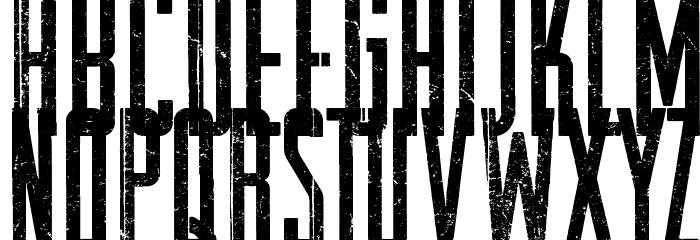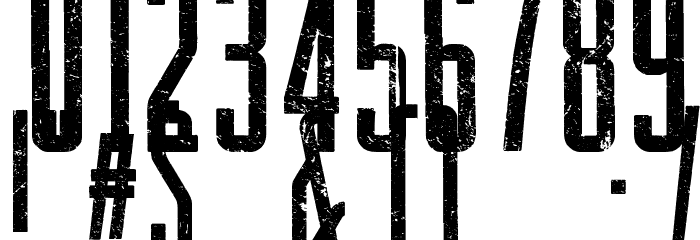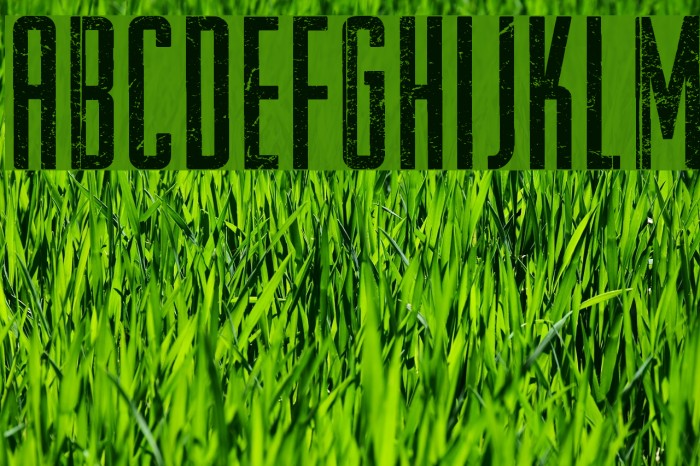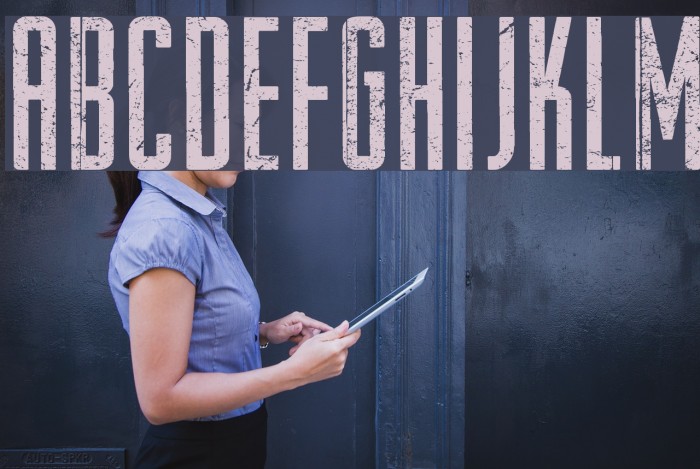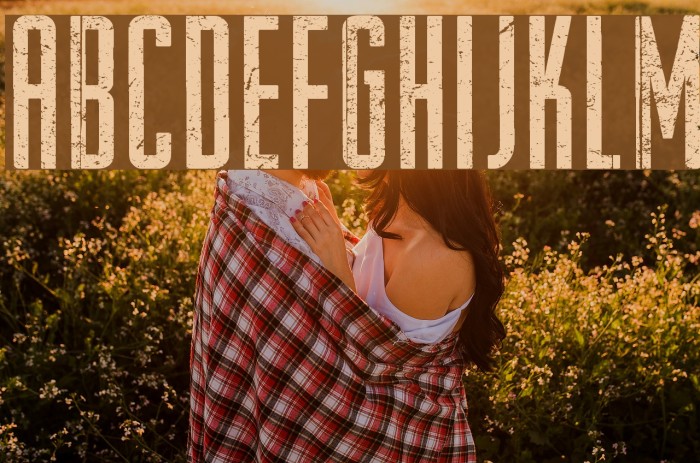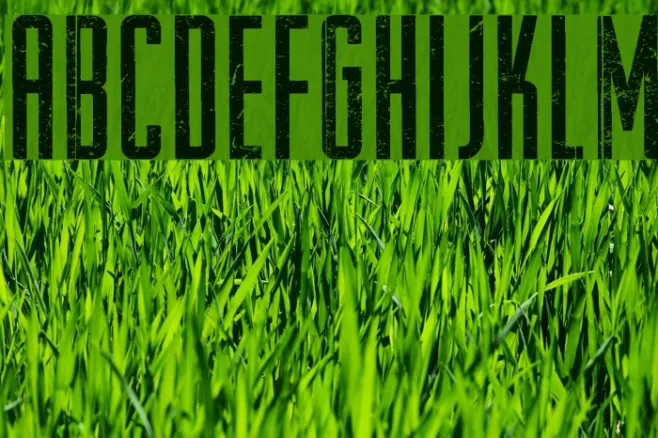
Raleigh Rock Font
This font features a bold and distressed style, characterized by its tall, narrow letterforms and rough, textured appearance. The uppercase and lowercase letters maintain a consistent height, creating a uniform look. The numbers and special characters follow the same distressed aesthetic, adding to the overall rugged feel. The font's design is reminiscent of vintage posters and signage, making it ideal for projects that require a strong, impactful visual presence. Its unique texture gives it a handcrafted look, perfect for adding a touch of authenticity and character to any design.
A bold, distressed font with a vintage, handcrafted appearance.
- Font: Raleigh Rock
- Proposed Projects: Ideal for vintage posters, signage, album covers, and branding projects that require a strong, impactful visual presence.
- Overall Style: Vintage